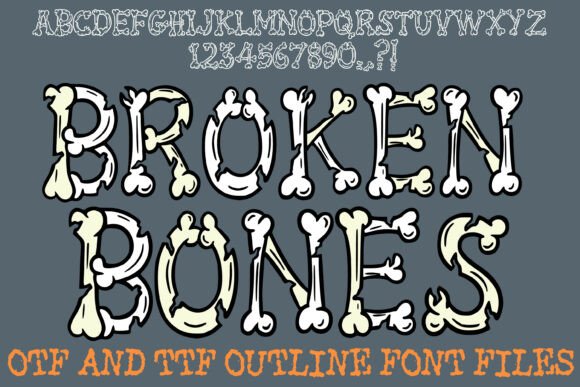
The Broken Bones Font: A Jagged, Yet Sophisticated Typeface for the Bold
I’ll never forget the design project that led me to discover the Broken Bones Font. I was working on a Halloween-themed branding campaign for a client who wanted to create a spooky, yet sophisticated visual identity. As I scrolled through font after font, nothing seemed to capture the perfect blend of eerie and elegant. That was until I stumbled upon the Broken Bones Font. With its jagged, brittle energy and playful “bouncy” geometry, it was love at first sight. In this article, I’ll dive into the world of Broken Bones Font, exploring its features, uses, and everything in between.
So, what makes the Broken Bones Font so special? Let’s break it down:
• ✨ Unique and eye-catching design: The Broken Bones Font boasts a one-of-a-kind, hand-drawn design that adds a touch of grit to any project.
• ✅ High-impact display typeface: This font is perfect for making a statement, whether you’re working on a Halloween-themed project or an edgy streetwear design.
• ✅ Playful yet sophisticated: The Broken Bones Font strikes the perfect balance between playful and sophisticated, making it suitable for a wide range of projects.
Of course, no font is perfect, and the Broken Bones Font has a few quirks:
• 🤔 Limited use cases: While the Broken Bones Font is perfect for certain projects, it may not be the best choice for more formal or traditional designs.
• ⚠️ Some characters may be difficult to read: The font’s distressed design can make some characters harder to read, especially at smaller sizes.
The Designer Inspiration Behind the Broken Bones Font
The Broken Bones Font was created with the intention of capturing the jagged, brittle energy of a skeleton in distress. The designer wanted to create a font that would add a touch of grit to any project, while still maintaining a level of sophistication. The result is a font that’s both ancient and rebellious, perfect for hardcore Halloween branding, horror-themed streetwear, and edgy holiday apparel.
What is the Broken Bones Font best used for? The Broken Bones Font is perfect for hardcore Halloween branding, horror-themed streetwear, and edgy holiday apparel.
Is the Broken Bones Font suitable for body text? No, the Broken Bones Font is best used as a display font, and may not be suitable for body text due to its distressed design.
Is the Broken Bones Font available in different weights or styles? Currently, the Broken Bones Font is available in a single weight, but the designer may release additional weights or styles in the future.